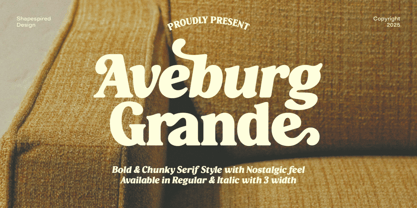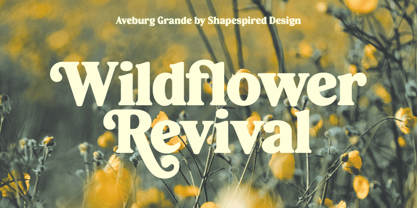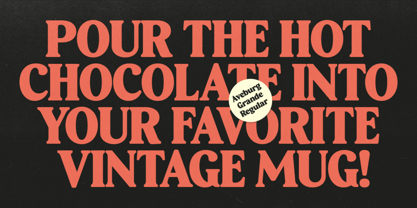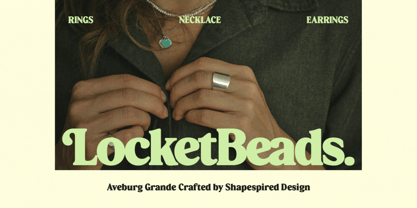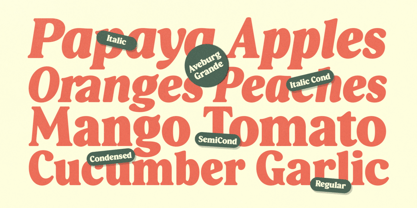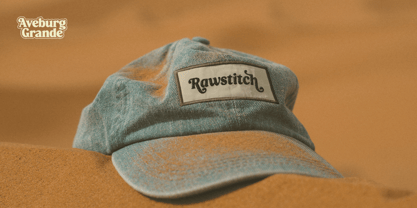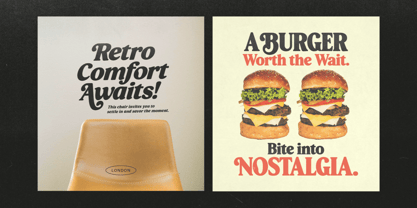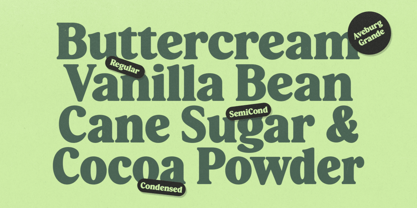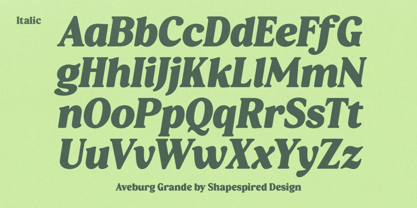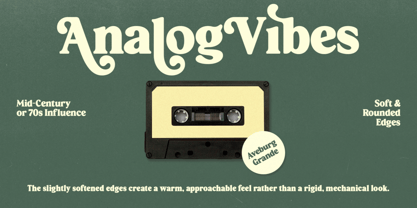
Aveburg Grande
The Aveburg Grande Font Family was designed by Muhajir Saputra and published by Shapespired Design. Aveburg Grande contains 6 styles and family package options. More about this family
Aveburg Grande is a stylish and adaptable type family inspired by vintage editorial design, mid-century aesthetics, and timeless typography.
This family includes:
- Regular & Italic styles
- Three widths: Condensed, Semi-Condensed, and Normal
With 6 total fonts, Aveburg Grande is built for versatility — whether you're designing bold headlines, elegant layouts, or nostalgic brand visuals. Its clean construction and subtle retro character make it a perfect fit for everything from print to packaging.
Use Aveburg Grande for:
- Retro branding & logos
- Magazine spreads & posters
- Packaging, merchandise, and lifestyle design
- Social media graphics with vintage flair